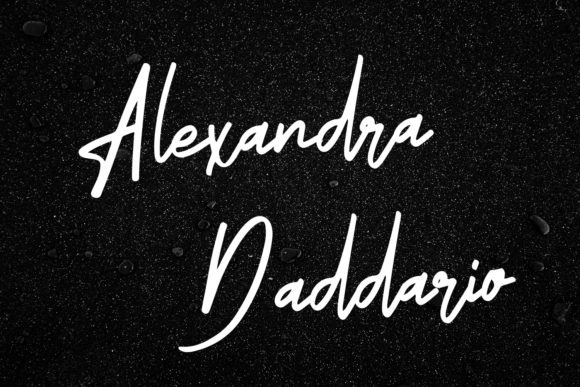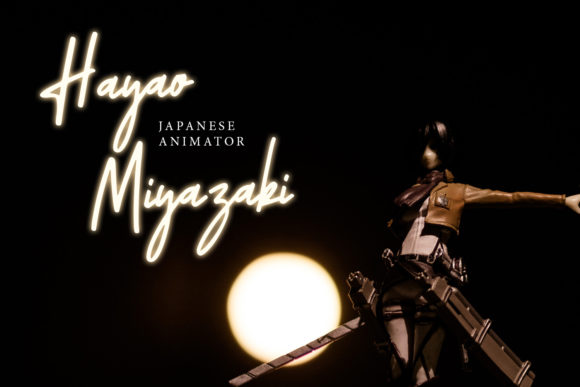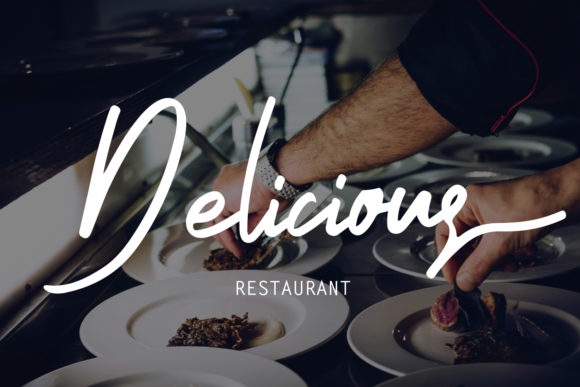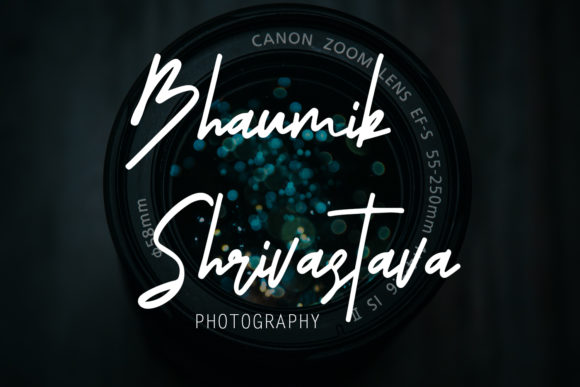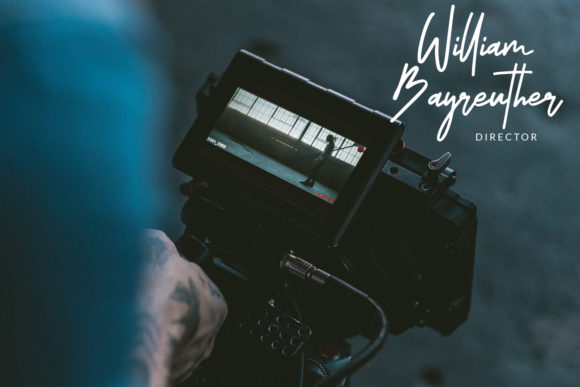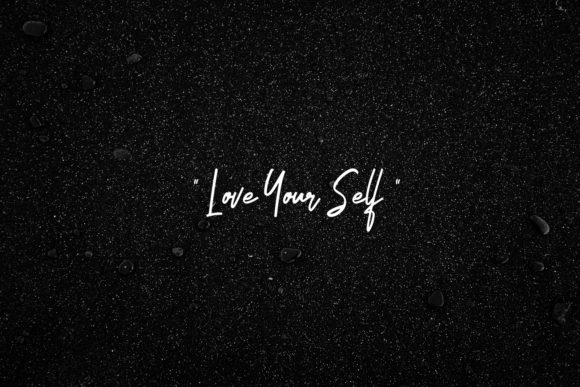
HomeScript FontsIntermezo Font Script Fonts Intermezo Font FacebookXPinterestWhatsApp Intermezo Font Poster 2 Intermezo Font Poster 3 Intermezo Font Poster 4 Intermezo Font Poster 5 Intermezo Font Poster 6 Intermezo Font Poster 7 About Intermezo Font Intermezo is a fun and cool script with a powerful vibe. Get inspired by its unique charm. DOWNLOAD NOW People also explored Love U Font Elizabeth Font Beauty Girl Shine Himawari Font Brilian Font Neo Cybern Font Neograph Font Matchbox Font Collection Love Quotes Font 284 0 TagsIntermezo Font Previous articleClathyn Keith Signature FontNext articleGlossed Font LEAVE A REPLY Cancel reply Comment: Please enter your comment! Name:* Please enter your name here Email:* You have entered an incorrect email address! Please enter your email address here Website: Save my name, email, and website in this browser for the next time I comment. Personal Use Free Where the Cookies Personal Use Free Read more about this font Scarlove Personal Use Free Read more about this font Fakedes Personal Use Free Read more about this font Zroest Personal Use Free Read more about this font BLOG Modern Sans-Serif Fonts That Brands Love in 2025 In 2025, modern sans-serif fonts remain a top choice for brands looking to project clarity, professionalism, and... The 10 Best Handwriting Fonts to Add Personality to Your Designs Fonts That Capture the Spirit of New York City Top 10 Handwritten Fonts That Elevate Your Designs